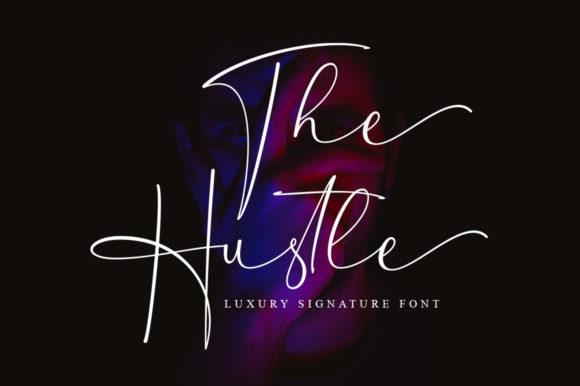
About The Hustle Font
The Hustle is a thin lettered and graceful script font. Fall for its ravishing style and use it to create gorgeous wedding invitations, beautiful stationary art, eye-catching social media posts, and much more!